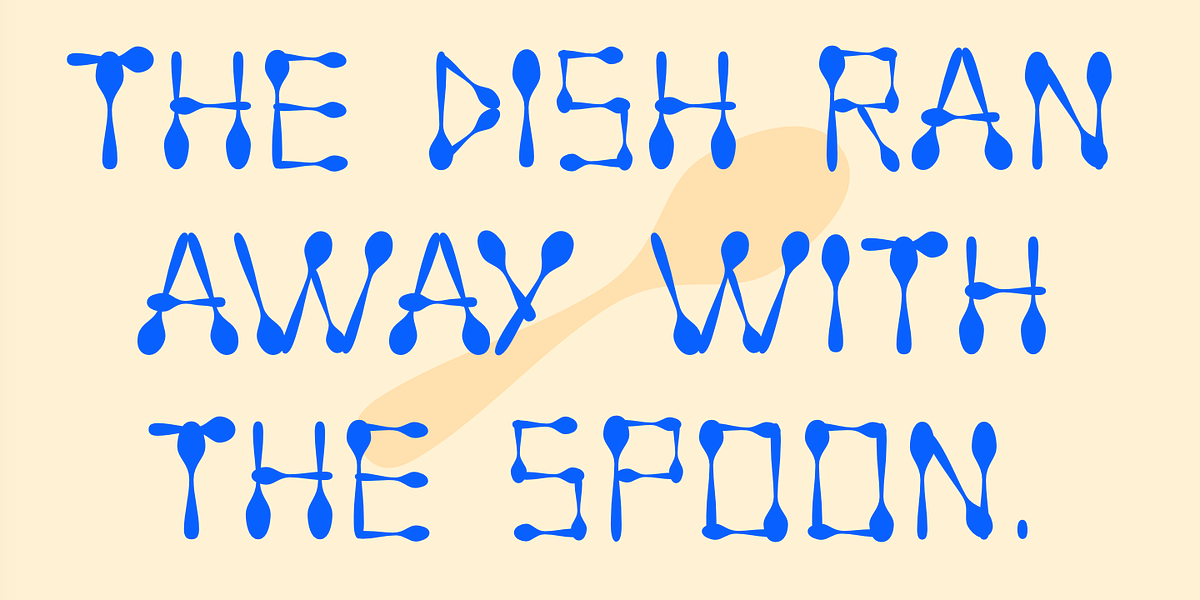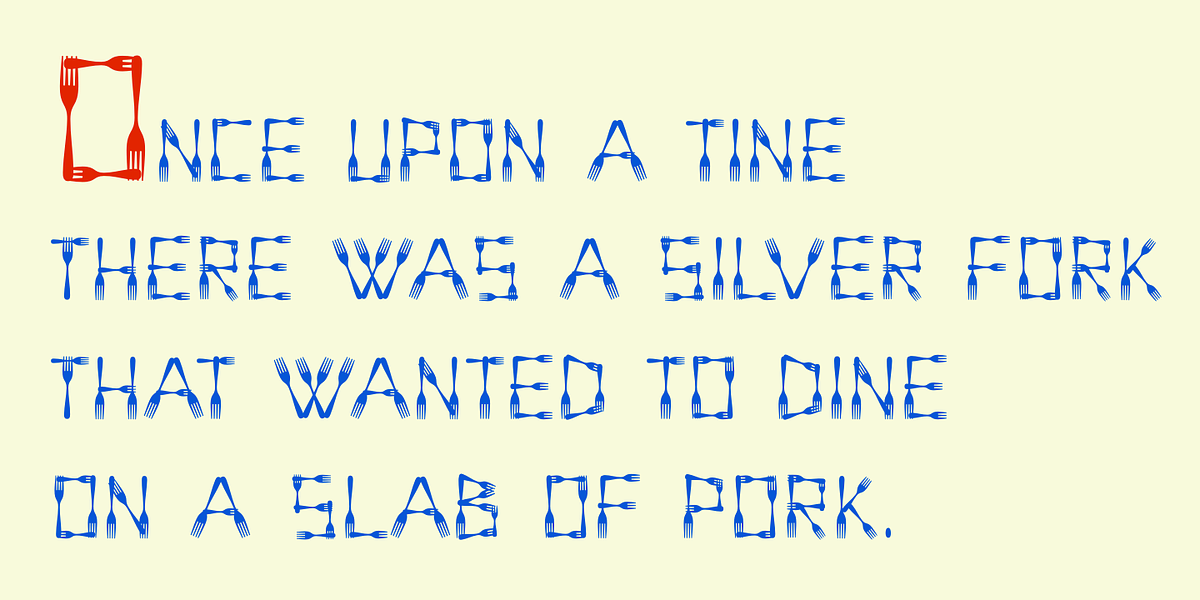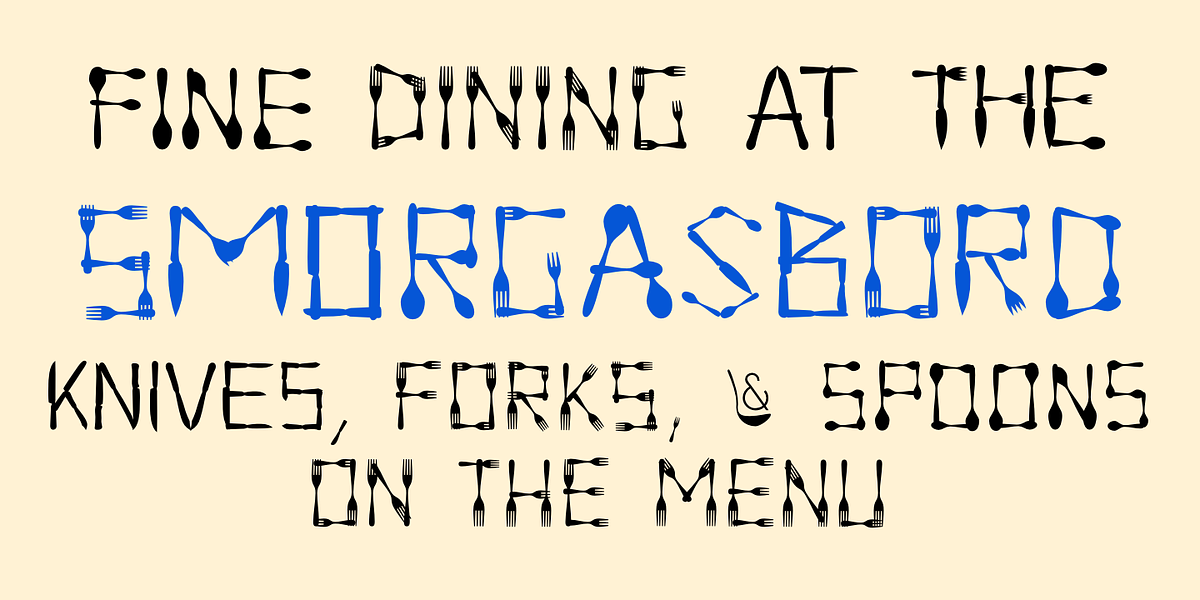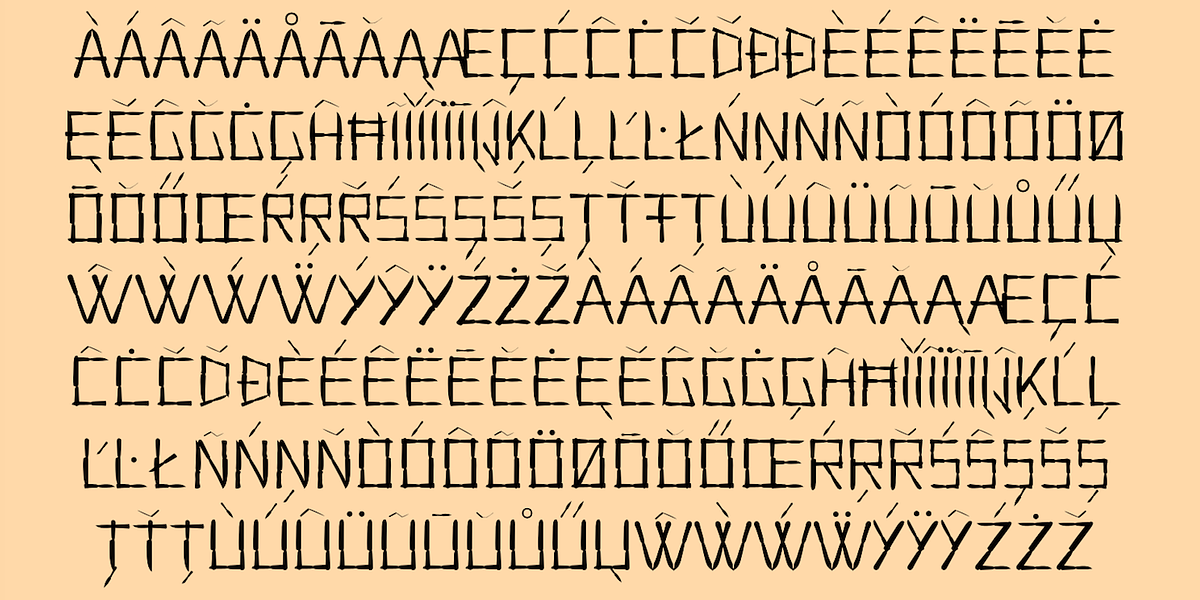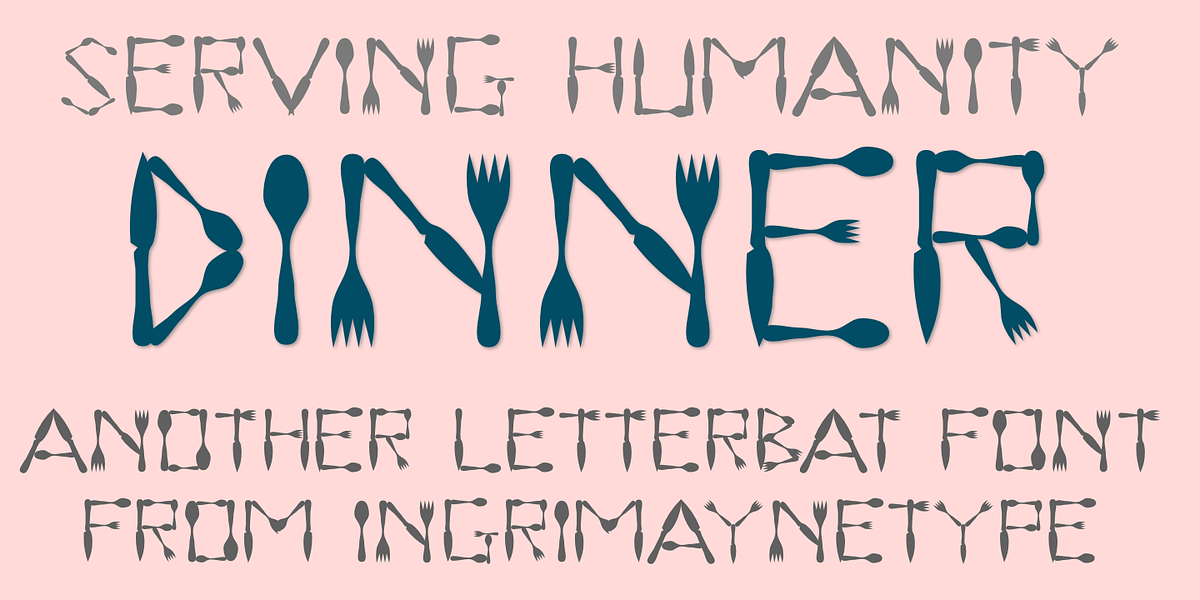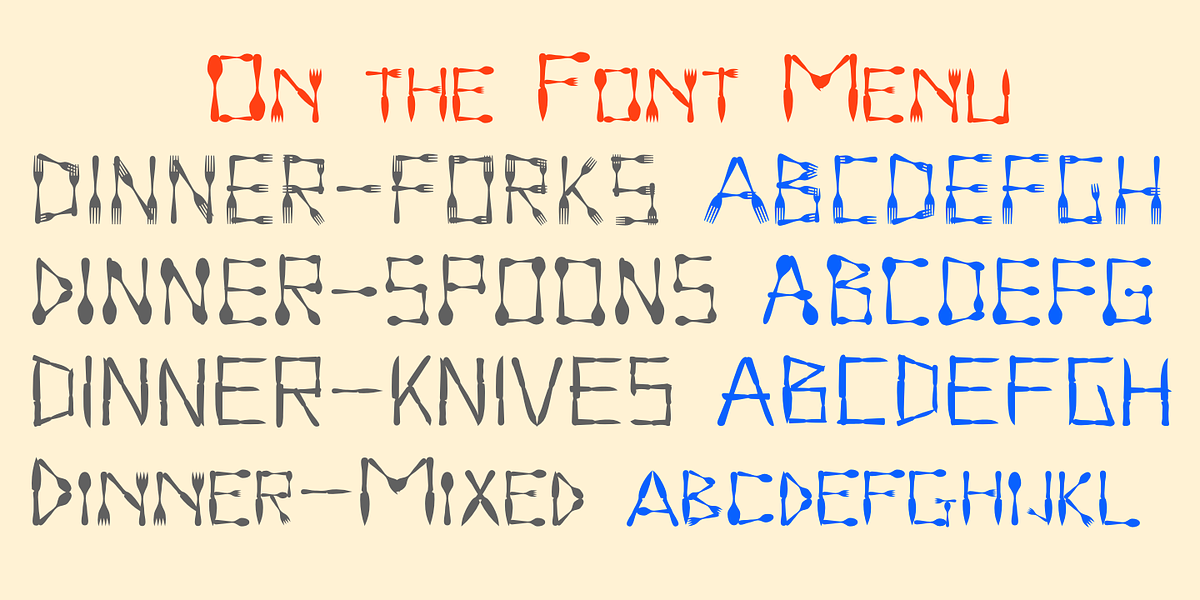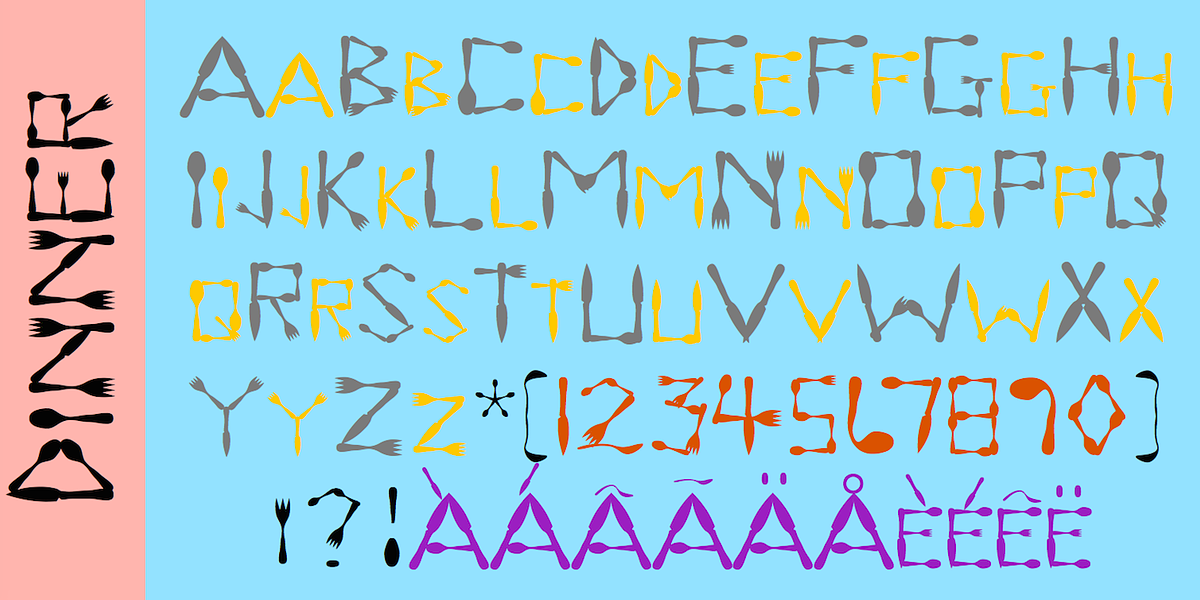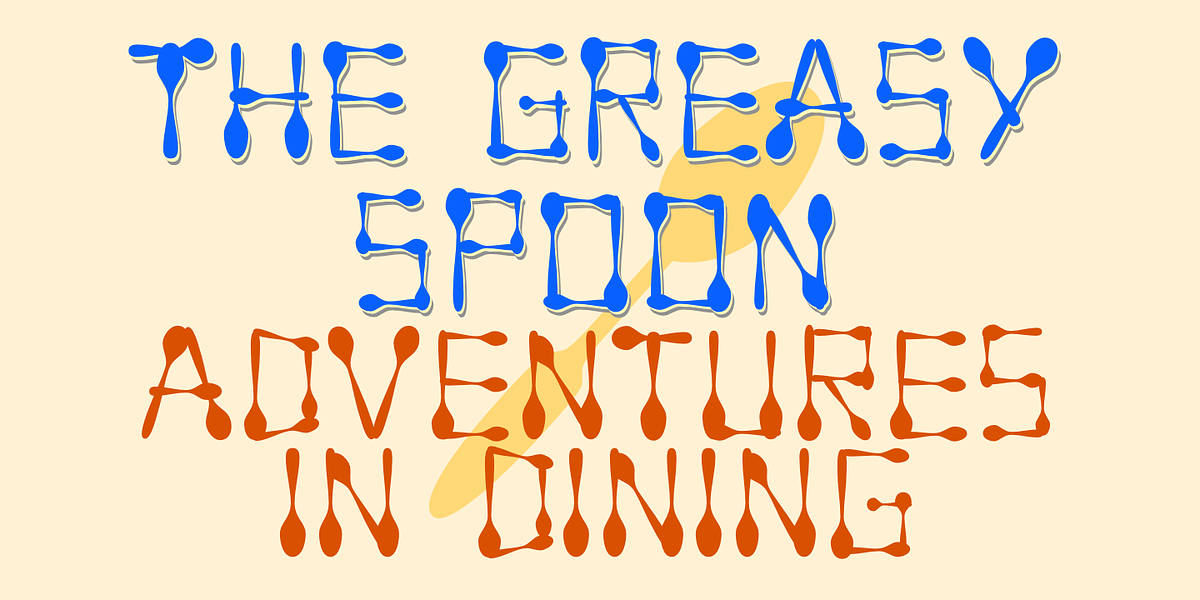
Dinner
The Dinner font family is a set of novelty dingbats where each character is constructed from cutlery – knives, forks, and spoons. Originally released as 'Dinner-Regular' in 1990, the family expanded in 2021 to include versions focused solely on knives ('Dinner-Knives'), spoons ('Dinner-Spoons'), or forks ('Dinner-Forks'). All fonts are all-caps, with lowercase keys providing alternate versions of uppercase letters. The quirky and playful design makes it ideal for food-related applications like packaging, menus, or kitchen decor, but its effectiveness is best realized at larger sizes.